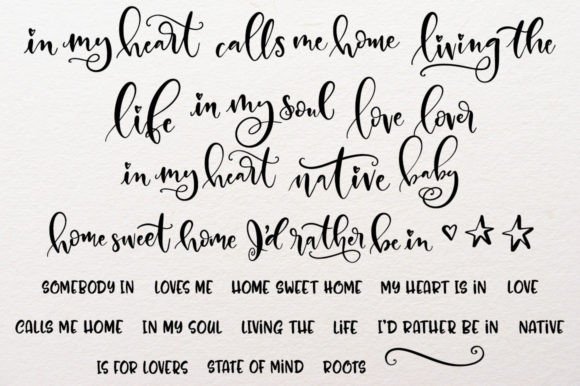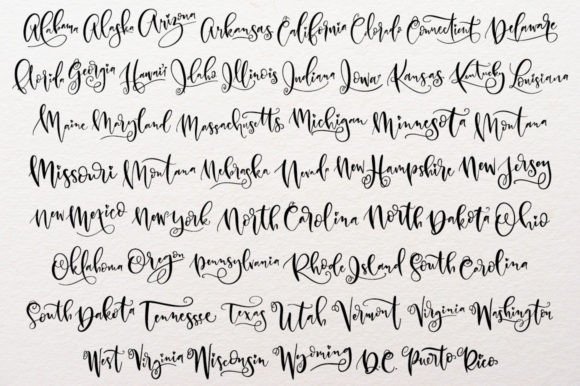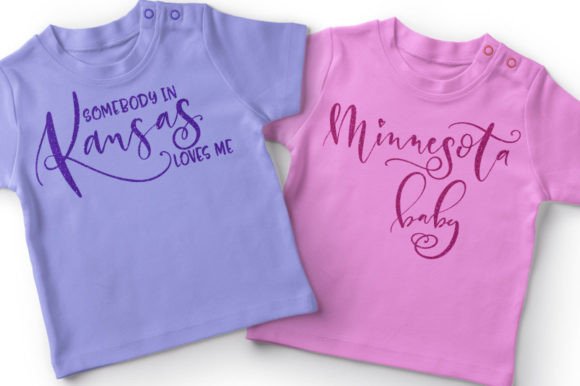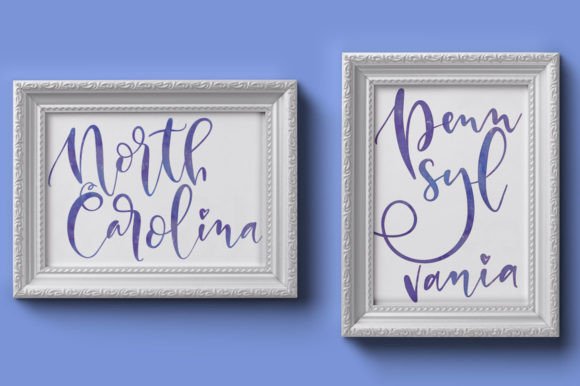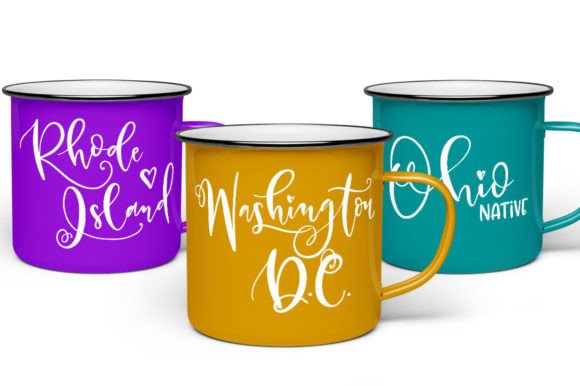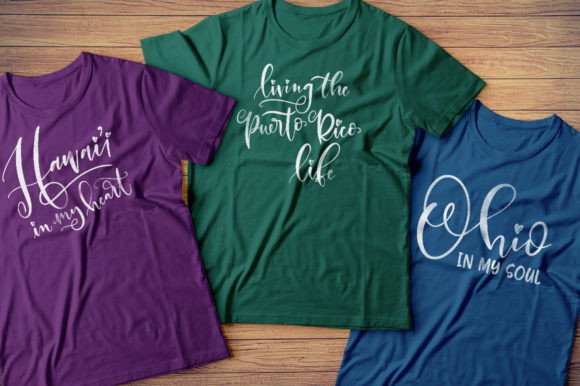
United Scripts Font
About United Scripts Font
Introducing “United Scripts,” a unique font that replaces traditional letters with hand-written words. With each keystroke, you’ll see a hand-lettered name of a U.S. state, allowing you to create designs that incorporate the beauty of handwritten script.
“United Scripts” features an alphabetically arranged collection of hand-lettered state names, starting from Alabama (A) and ending with Wyoming (X). Additionally, “D.C.” is included to represent Washington, D.C. This font allows you to easily incorporate state names into your designs with just a few keystrokes.
To complement the state names, “United Scripts” also includes over 25 supplemental words and phrases in both script and all-caps. These supporting phrases, such as “CALLS ME HOME,” “MY HEART IS IN,” “IN MY SOUL,” and many more, are designed to pair perfectly with the state names and add depth to your designs.
Whether you’re creating posters, banners, social media graphics, or any other design that celebrates the United States or specific states, “United Scripts” provides a creative and engaging way to incorporate hand-lettered elements. The font comes in both OTF and TTF file formats, ensuring compatibility with various design software.
With “United Scripts,” you can add a personal and handcrafted touch to your designs, celebrating the diversity and beauty of the United States through the art of hand-lettering. Let your creativity flow as you combine state names and supporting phrases to create unique and meaningful designs.